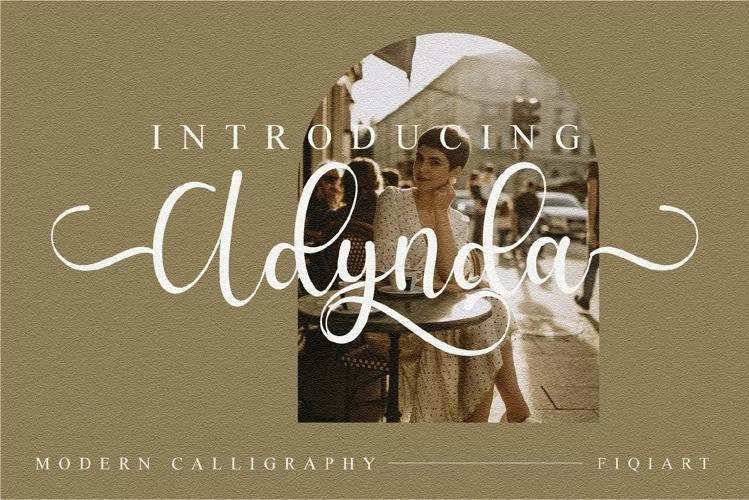
Adynda Font
Adynda Calligraphy Font
It’s a modern and cool script font created by fiqiart09 with amazing swashes. Not too thin and not too thick, balanced and varied, this font was designed to enhance the beauty of your projects.